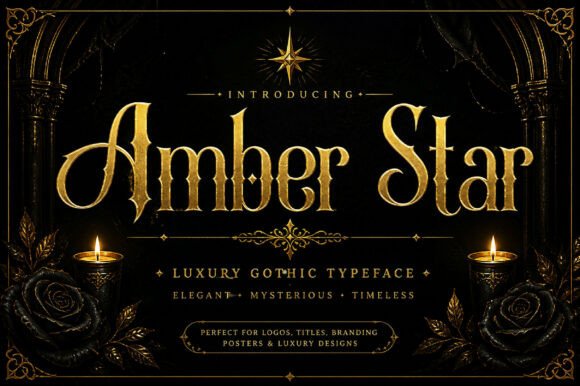
The Designer’s Dilemma: Finding Elegance with Amber Star Font
I still remember the countless hours I spent searching for the perfect font for a client’s luxury brand project. The brief was simple: elegant, vintage, and sophisticated. I scrolled through font libraries, tried out dozens of options, but nothing seemed quite right. That was until I stumbled upon Amber Star Font. ✨
With its refined serif structure, stylish letterforms, and subtle decorative details, Amber Star instantly caught my attention. It was as if the font was tailor-made for my project. In this article, I’ll share my experience with Amber Star, its features, and how to make the most of it in your designs.
An Honest Review of Amber Star Font
- ✨ Elegant and sophisticated: Amber Star exudes luxury and refinement, making it perfect for high-end projects.
- ✅ Readability and legibility: The balanced serif structure ensures that the font is easy to read, even at smaller sizes.
- 💫 Vintage charm: The font’s subtle decorative details and classic letterforms evoke a sense of nostalgia and timelessness.
- 🎨 Versatility: Amber Star is suitable for a wide range of applications, from branding and logos to editorial layouts and social media graphics.
While Amber Star is an excellent font, there are a few things to keep in mind: 🤔
- ⚠️ Limited use in body text: Due to its decorative nature, Amber Star may not be the best choice for lengthy body text. It’s better suited for headlines, titles, and short paragraphs.
- ⚠️ Requires attention to kerning: As with any serif font, kerning can be a bit tricky. Make sure to adjust the kerning to achieve optimal results.
The Story Behind Amber Star Font
Amber Star was designed with the goal of creating a font that embodies classic elegance with a touch of vintage charm. The designer aimed to craft a font that would be suitable for high-end projects, such as luxury branding, editorial layouts, and wedding invitations. The result is a font that exudes sophistication and refinement, making it perfect for designers who want to add a touch of luxury to their work.
Q: What is Amber Star Font best suited for?
A: Amber Star Font is best suited for high-end projects, such as luxury branding, editorial layouts, wedding invitations, and packaging.
Q: Can I use Amber Star Font for body text?
A: While Amber Star Font can be used for body text, it’s better suited for headlines, titles, and short paragraphs due to its decorative nature.
Q: Is Amber Star Font suitable for digital use?
A: Yes, Amber Star Font is suitable for both print and digital use, making it a versatile choice for designers.